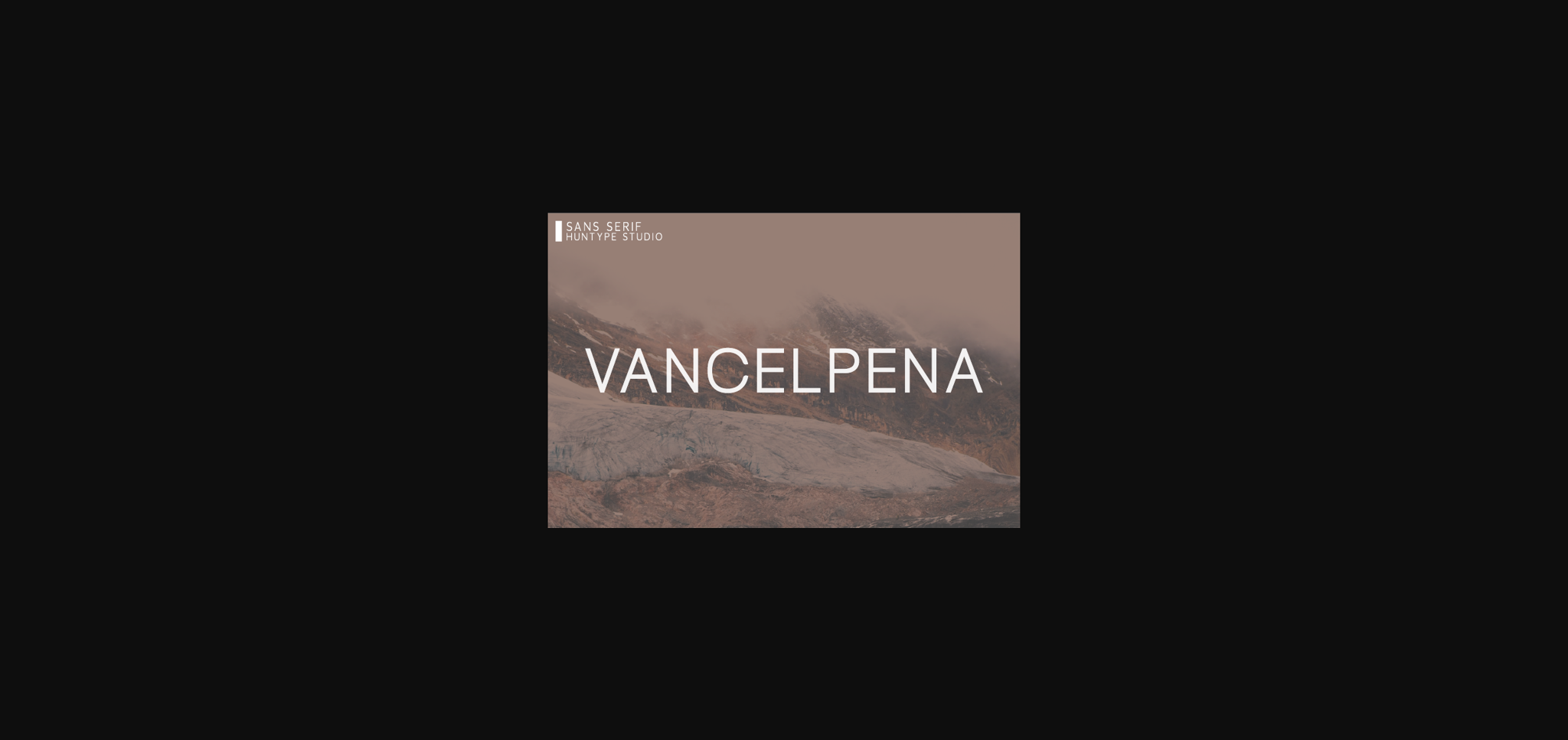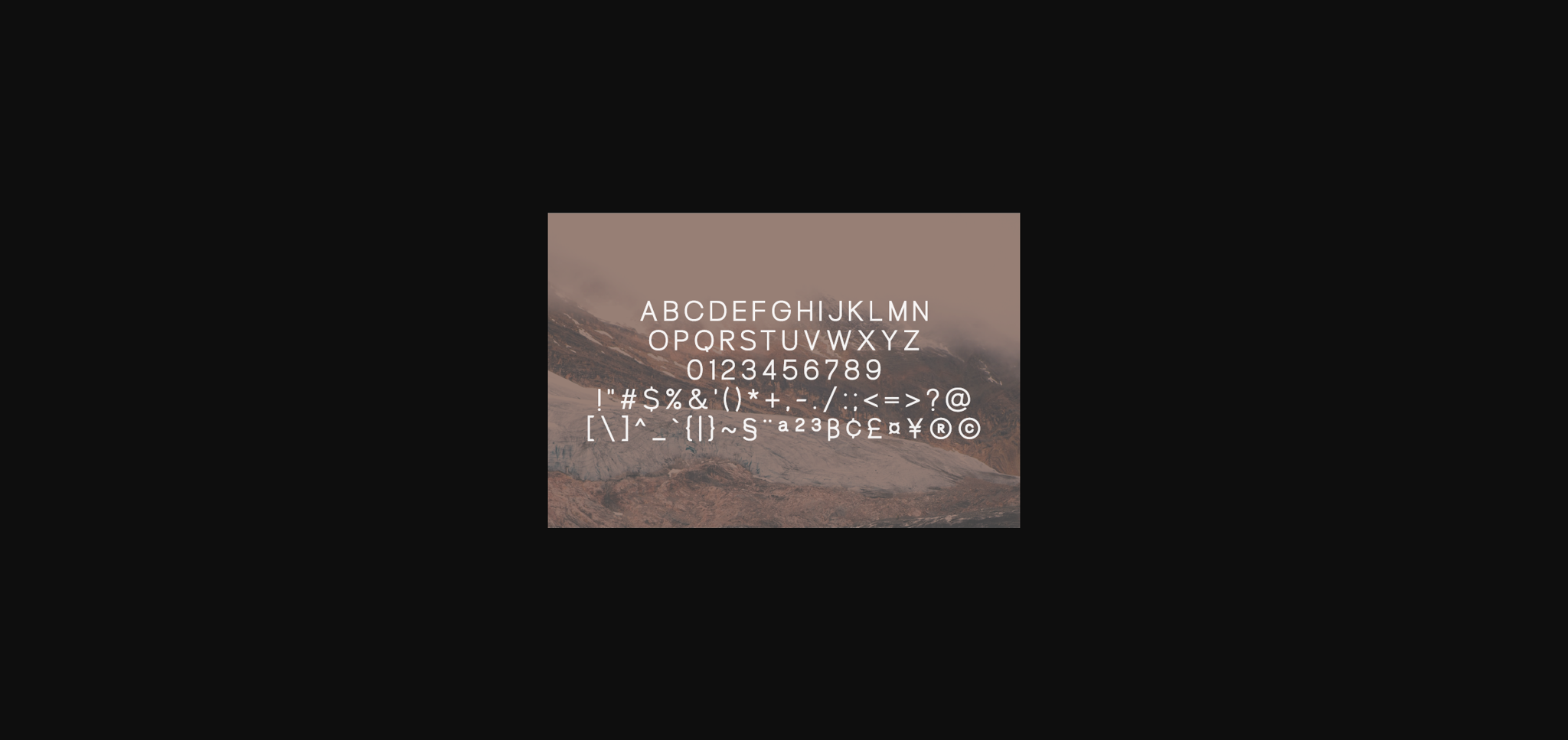
Vancelpena Font
About Vancelpena Font
Vancelpena is a minimal and neat sans serif font. It can easily be matched to an incredibly large set of projects, so add it to your creative ideas and notice how it makes them stand out!